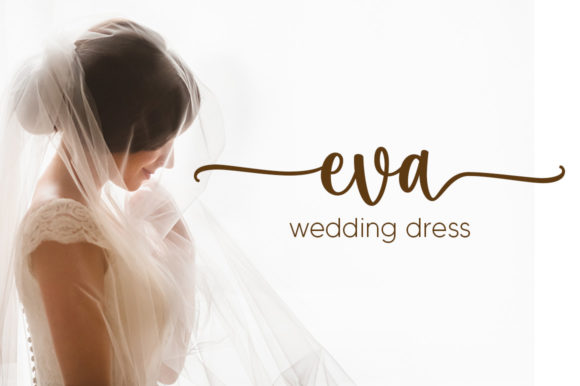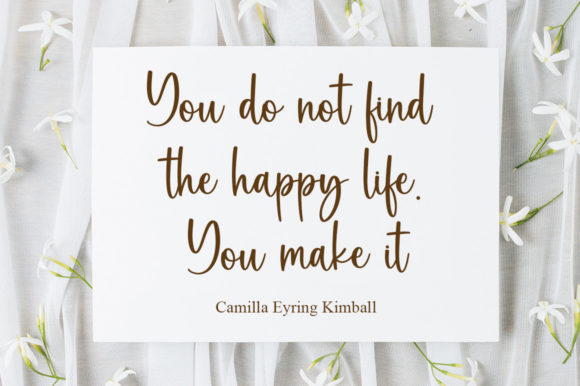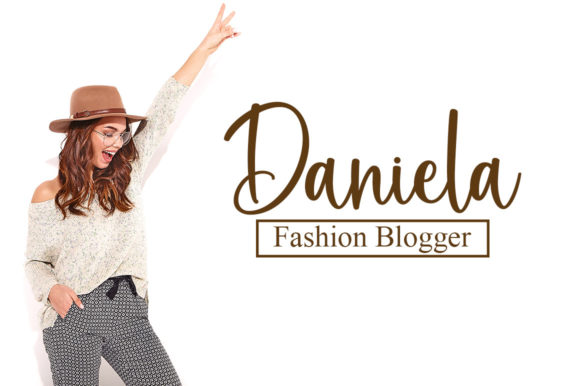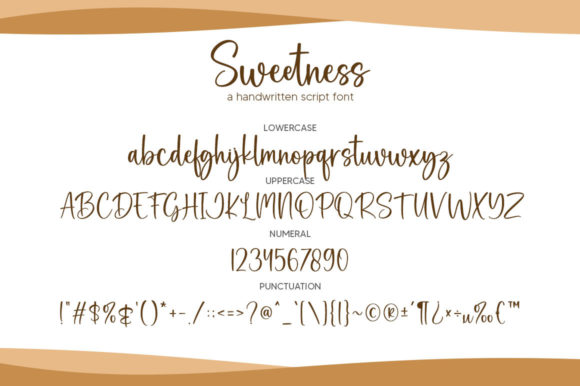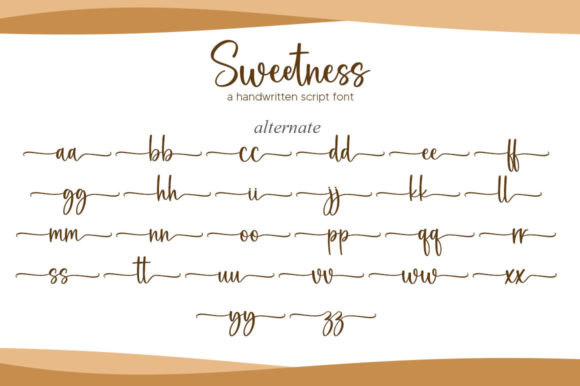
Sweetness Font
About Sweetness Font
Sweetness is a delicate and refined script font that emanates sophistication and elegance. Its stylish alternates and ligatures make this font the perfect match for any project.